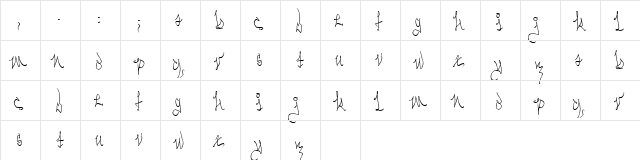
Serpent Knotform Regular
Design Context for Serpent Knotform Typeface
Serpent Knotform is a composed and adaptable typeface that performs quietly and consistently across a wide range of design contexts.